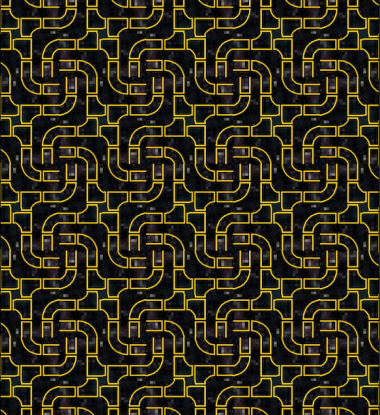
Beautiful design with awesome samples. 10/10! And it reminded me of my fontstruction "Targeted", which I should get back to sometime... Maybe my imagination's a bit simple, cause the first thing I saw in this design was a handcuff ).
how built the second sample?!
Note: You forgot "OE", "oe", "Ý", "ý", and "ÿ" (I always added it in extended version on the font)